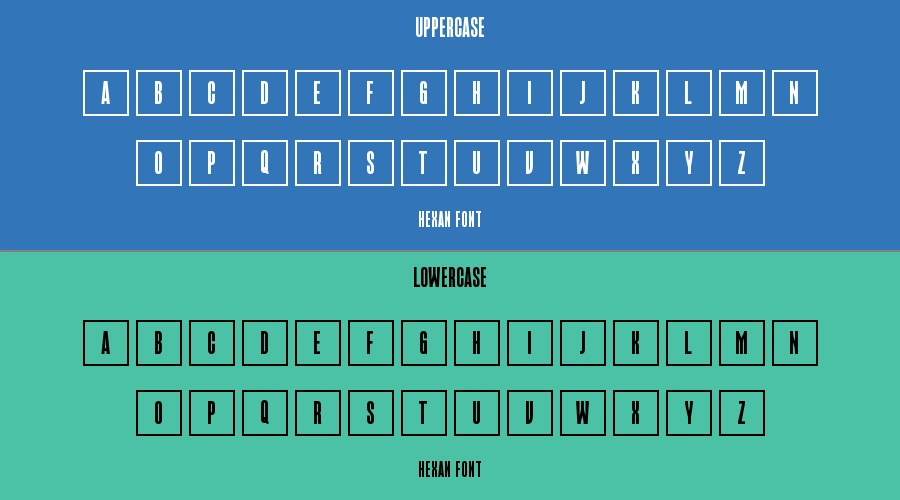
About Hexan Font
Hexan Font represents a sophisticated approach to type design, balancing harmonic curves with exceptional clarity. Perfect for packaging hero, this font family showcases impressive functionality and aesthetic excellence throughout its character set. Designers appreciate its versatility and reliability.
Designers will appreciate nuanced touches including balanced proportions and monogram components, adding sophistication to any project. These features become apparent in formal invitations, where personality transfer matters most. The careful treatment of letterfit and cultural references ensures optimal performance.